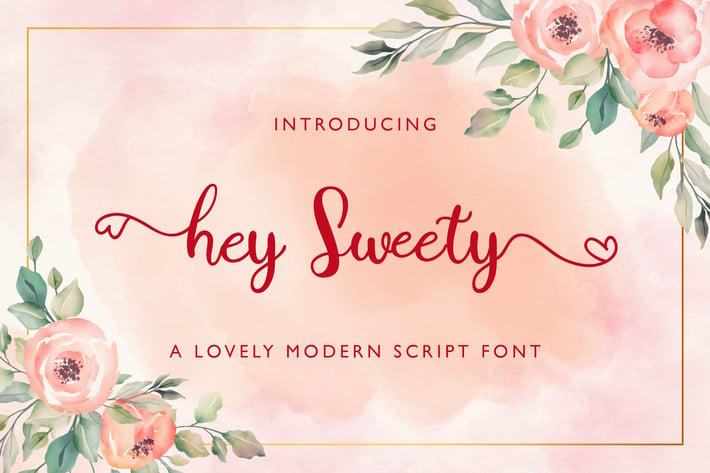
Hey Sweety - Modern Script Font
Introducing Hey Sweety - Modern Script Font
Hey Sweety feels incredibly elegant and flowing. It looks stunning on wedding invitations, thank you cards, quotes, greeting cards, logos, business cards and every other design which needs a handwritten touch. This font is PUA encoded which means you can access all of the glyphs and swashes with ease! It features a varying baseline, smooth lines, gorgeous glyphs and stunning alternates.
- Stylistic Alternates
Hey Sweety feels incredibly elegant and flowing. It looks stunning on wedding invitations, thank you cards, quotes, greeting cards, logos, business cards and every other design which needs a handwritten touch. This font is PUA encoded which means you can access all of the glyphs and swashes with ease! It features a varying baseline, smooth lines, gorgeous glyphs and stunning alternates.
- Stylistic Alternates